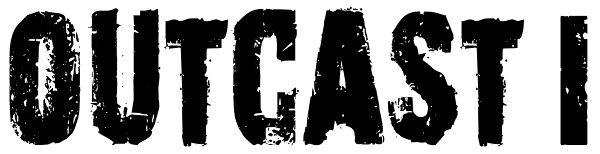
Outcast
Outcast puts the whole grunge font problem to rest by eliminating repetition. Here we have eight variations on each character (4 all cap fonts), so there is no more need to use the same character twice in any display setting. You have the main...
Outcast I
Outcast IV
Outcast III
Outcast II
Outcast Pro